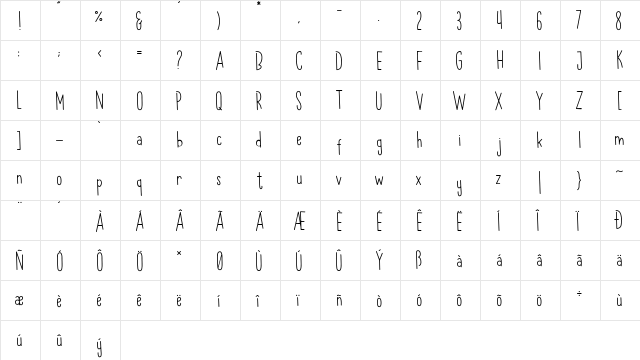
Spring Holiday Regular
| Foundry | Muammar Khalid |
| Designer | Muammar Khalid |
Design Context for Spring Holiday Typeface
Spring Holiday is a composed and adaptable typeface that performs quietly and consistently across a wide range of design contexts.